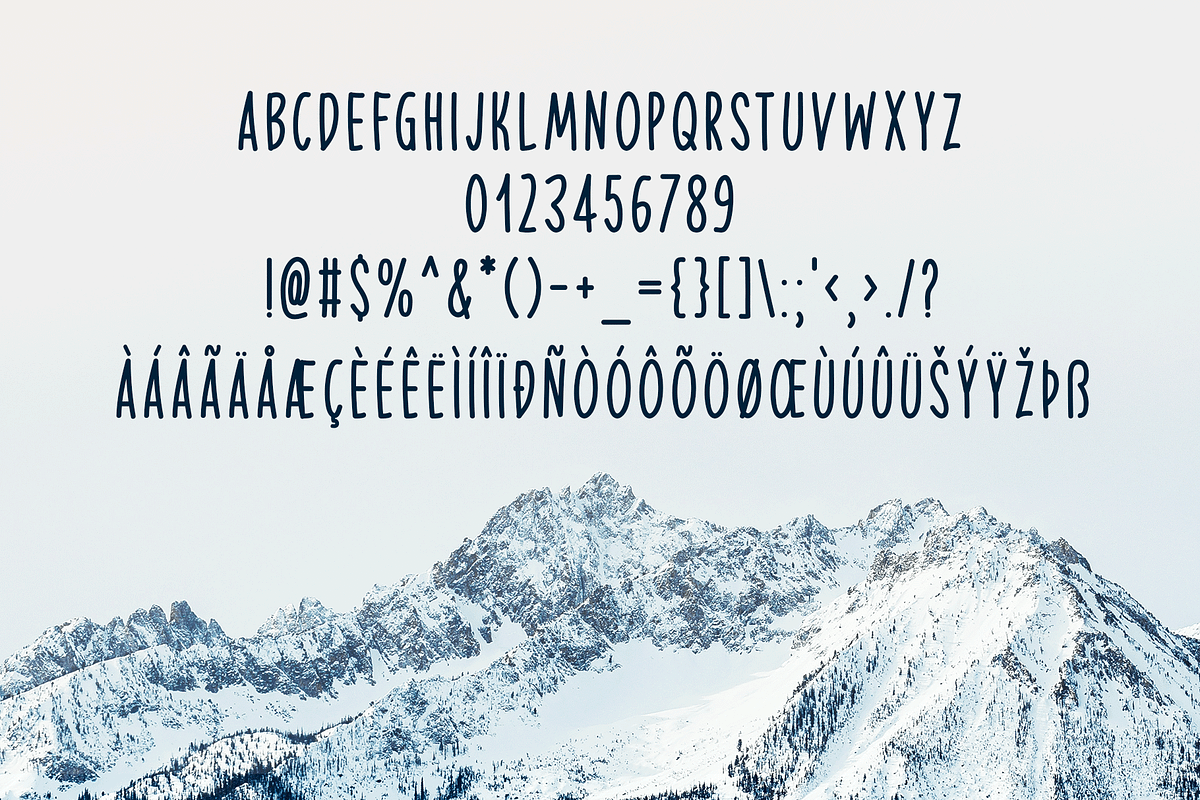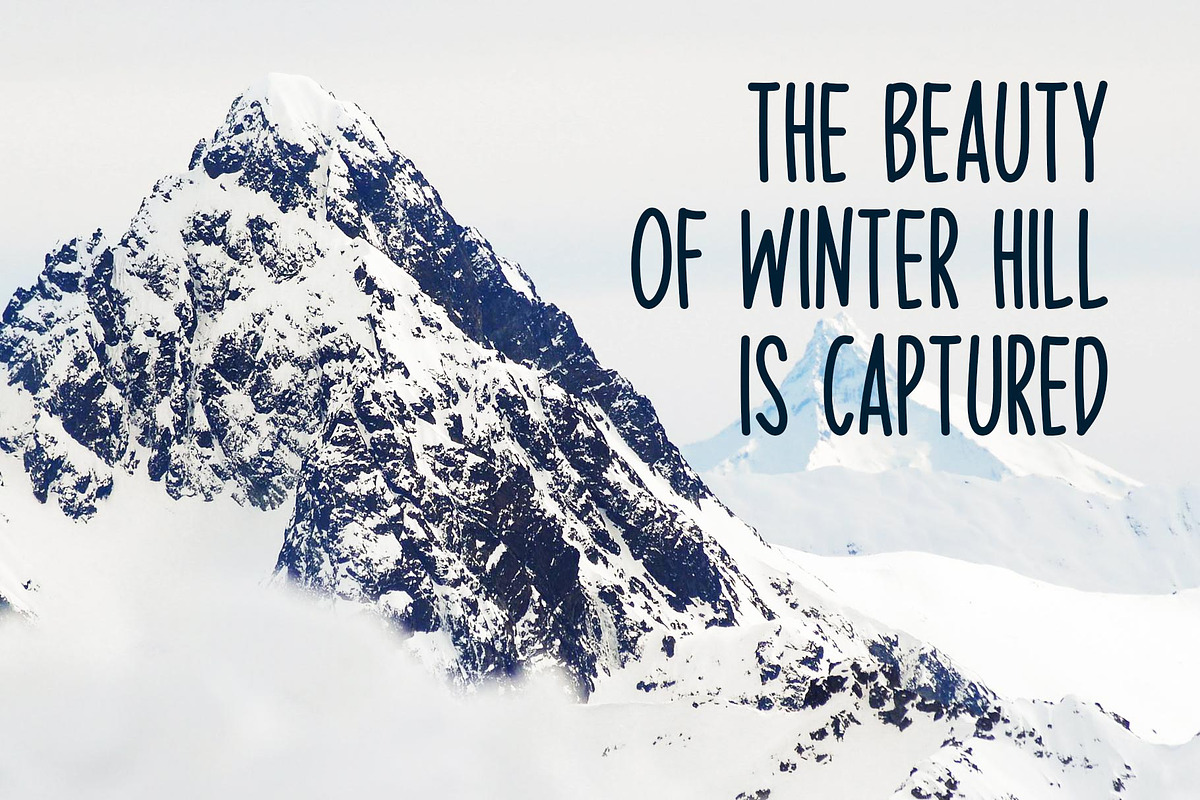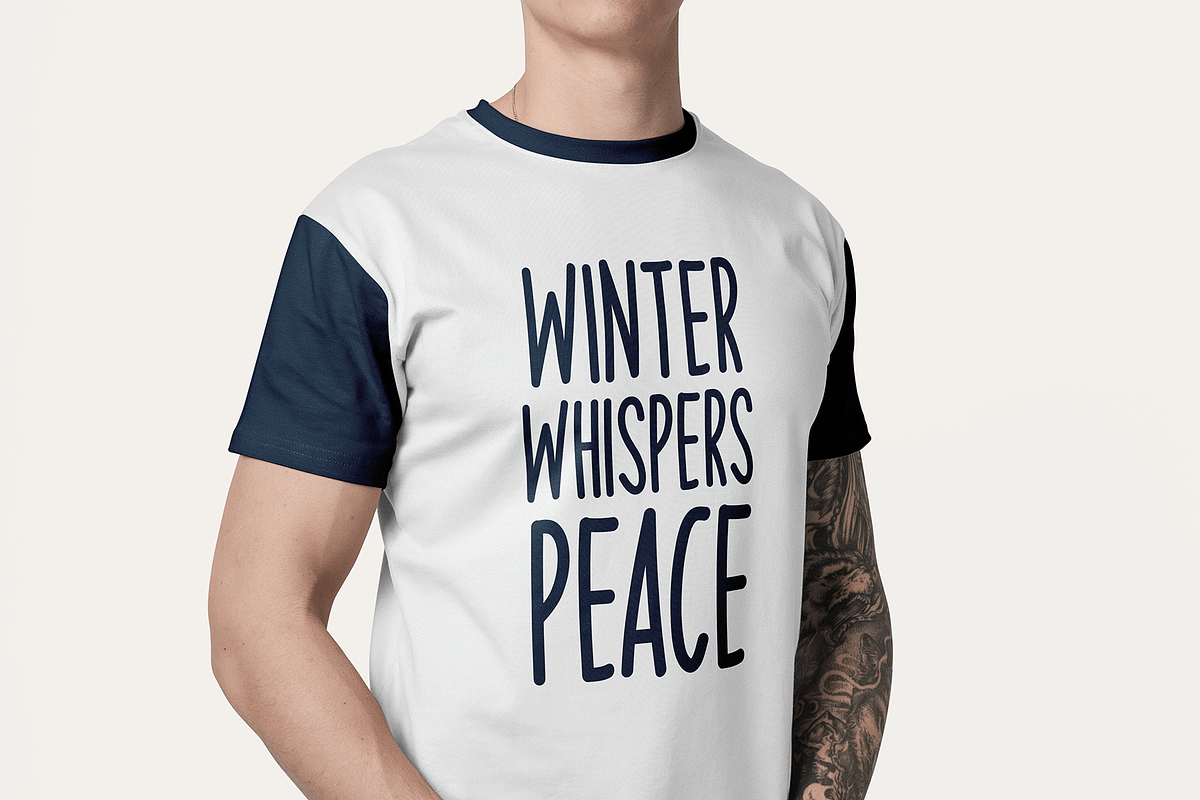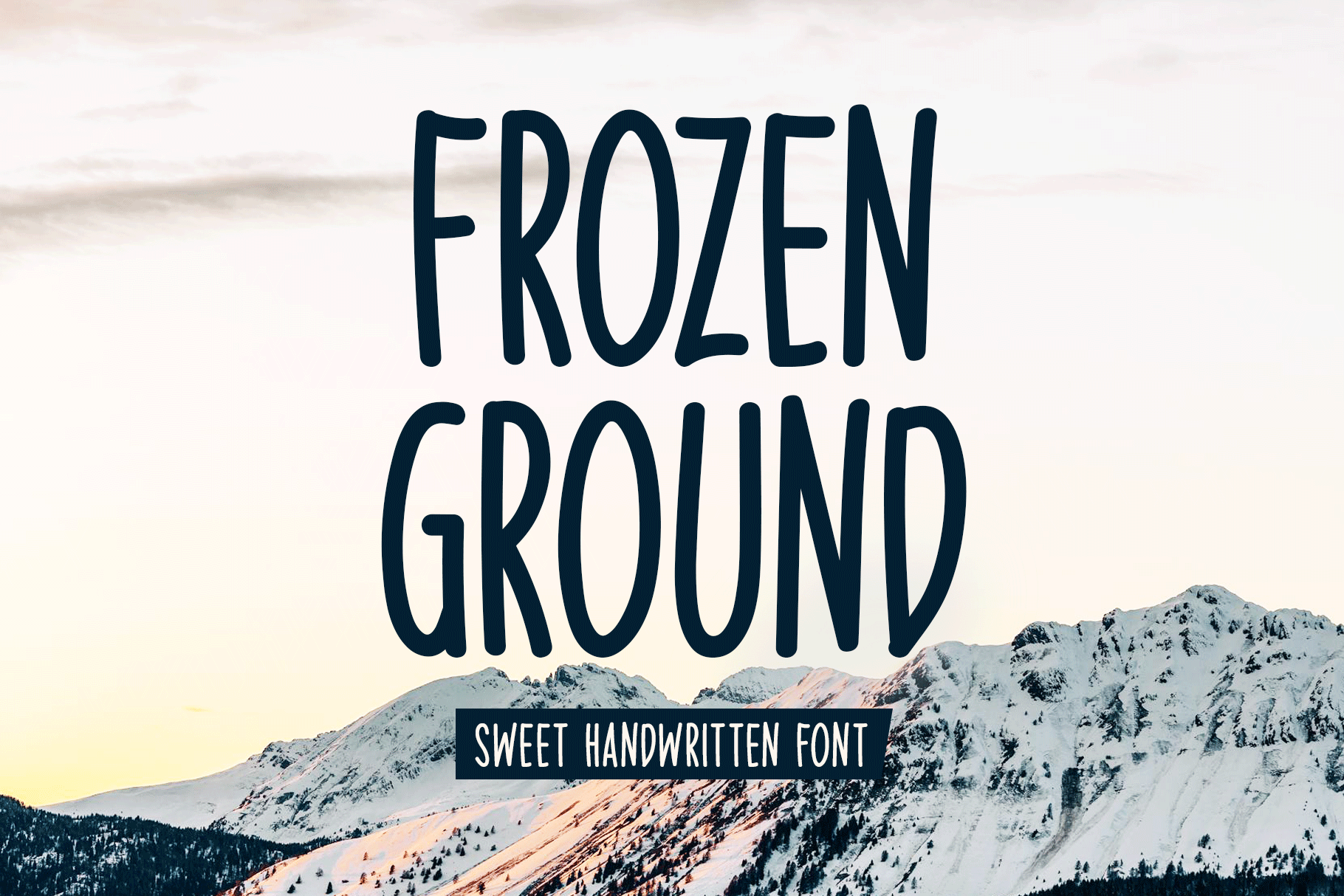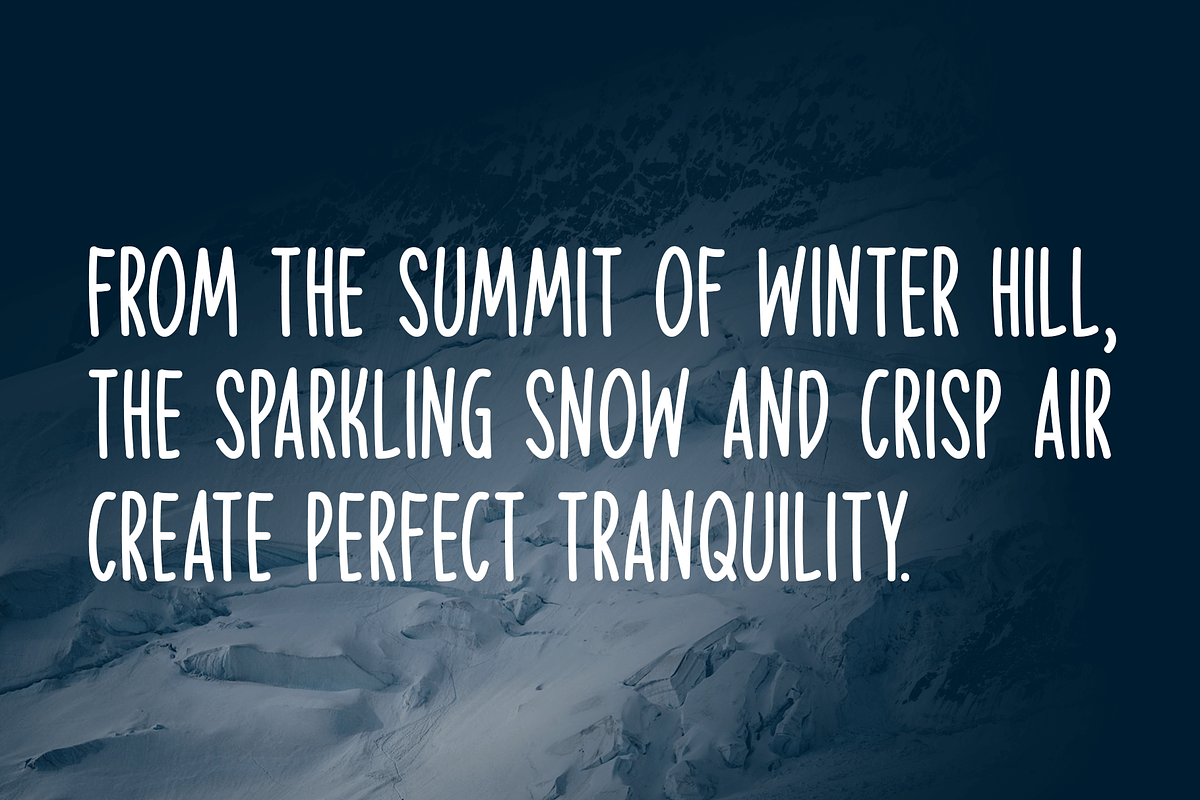
Frozen Ground Typeface
Introducing Frozen Ground!
Frozen Ground is a charming, handwritten font that adds a touch of warmth and playfulness to your designs. Its elegant, flowing style makes it ideal for a variety of creative projects, from stationery and branding to t-shirt graphics, flyers, posters, and website headers. Perfect for both seasonal and year-round designs, this font gives all of your printed and digital products a sentimental, intimate touch that communicates happiness and optimism.
Includes a range of multilingual support